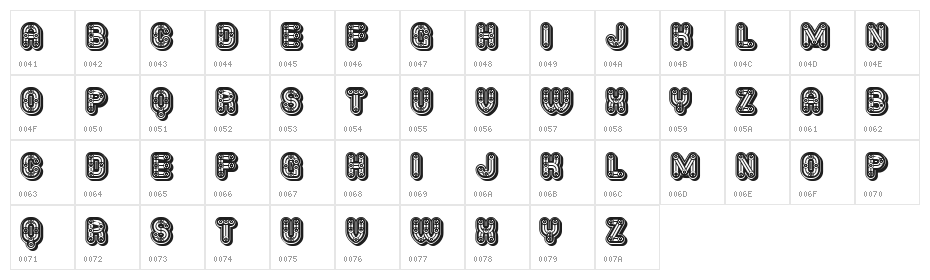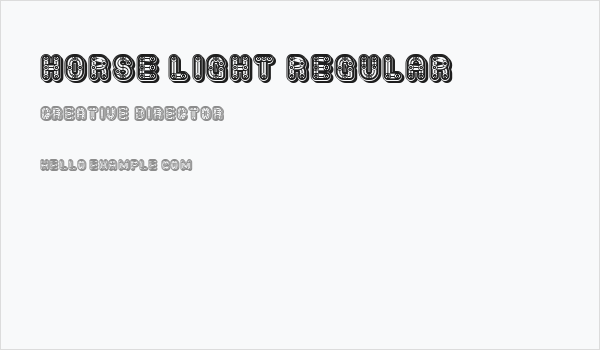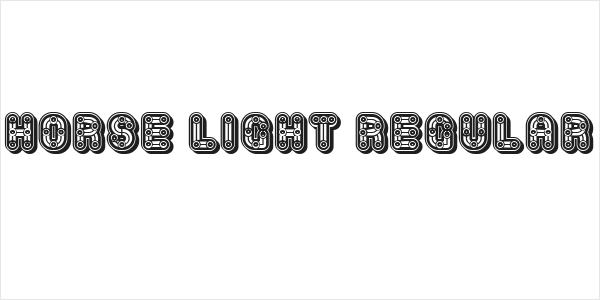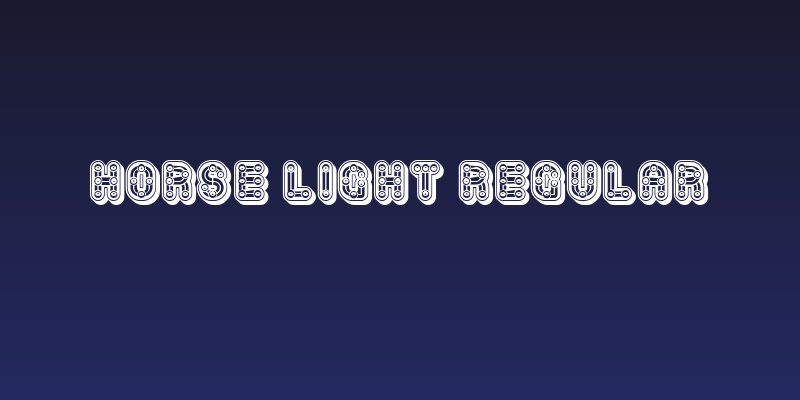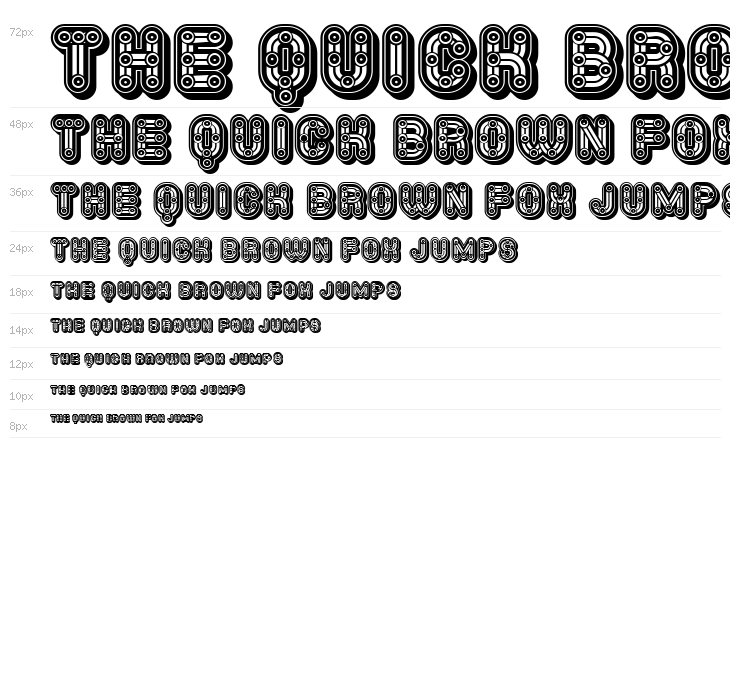
Horse Light Regular Font
Horse Light Regular Description
This font features a unique and playful design with a bold, decorative style. Each character is composed of intricate patterns that resemble circuit board elements, giving it a futuristic and technological feel. The letters are outlined with a thick black border, enhancing their visibility and making them stand out. The font maintains a consistent width across all characters, providing a balanced and cohesive look. Its distinct appearance makes it suitable for creative and modern projects, where a touch of innovation is desired.
| Proposed Projects | Ideal for technology-themed posters, innovative branding, and modern digital artwork. |